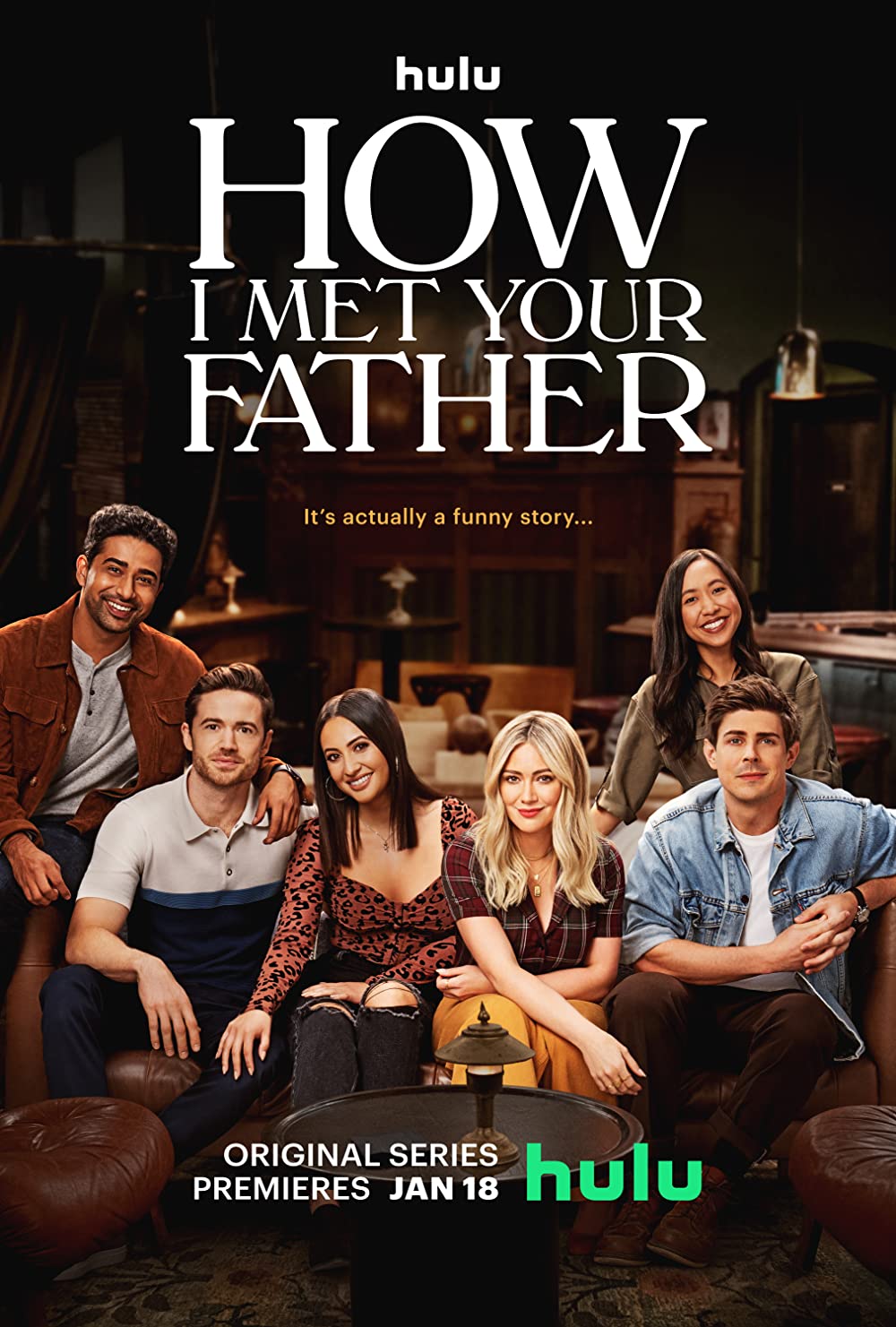
How I Met Your Father Font
The title How I Met Your Father is most likely set in a display serif named Windsor, which Eleisha Pechey first designed in 1905 for the British type foundry Stephenson Blake. This family of typefaces, which has since been subsequently digitized, is available from Linotype in a range of weights including Light, Bold, Ultra Heavy, Extra Bold Condensed, Elongated, and Bold Outline. The font is a commercial one and you can download it here.